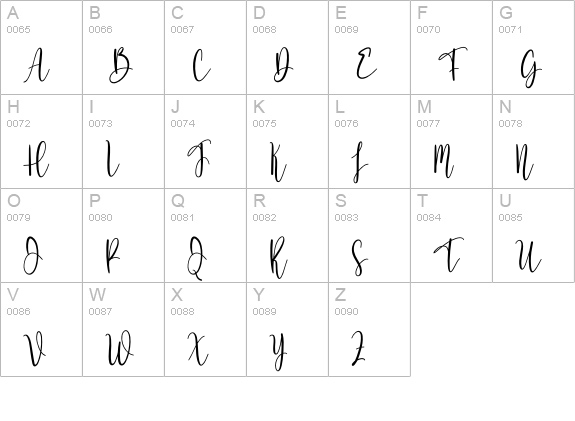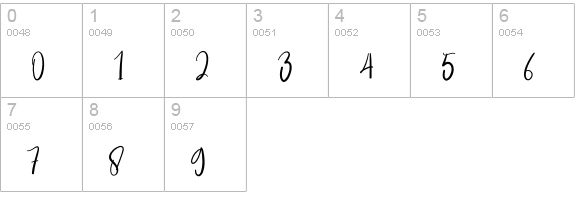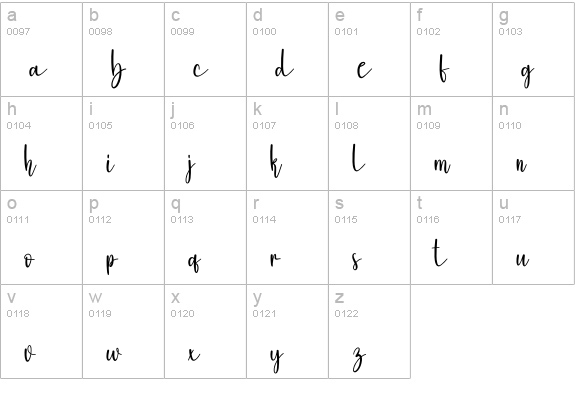
Ashley Felhan Font Details
Ashley Felhan is a free for personal use font in the Script > Handwritten category, designed by scratchones. It has been downloaded 10 times and is available for Windows, Mac and Linux.
Introducing Ashley Felhan, a stunning and elegant font that exudes sophistication and charm. This versatile typeface is perfect for a wide range of design projects, from invitations to branding to packaging. With its delicate curves and stylish flourishes, Ashley Felhan adds a touch of luxury to any design.